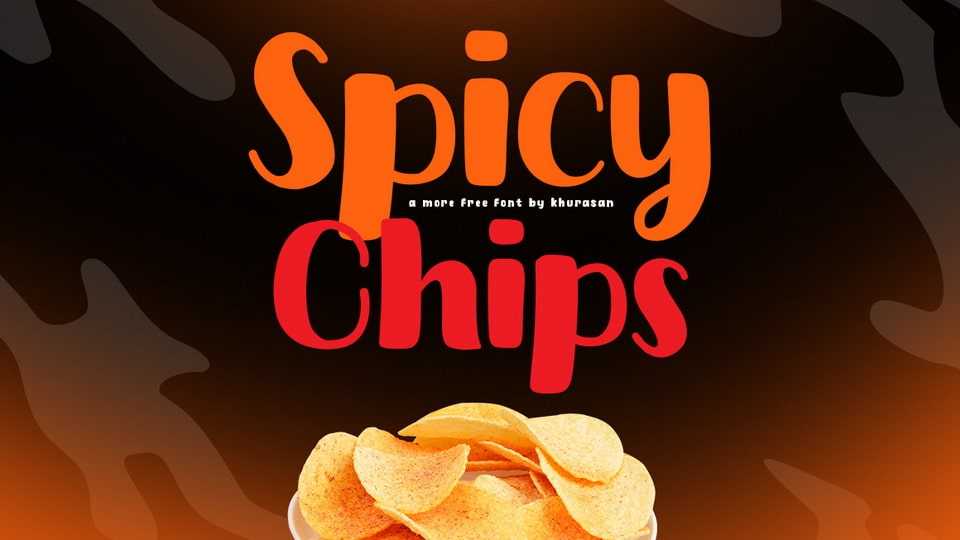
Download Spicy Chips font, a cute handwritten typeface that brings the magic of cartoons to life. Spicy Chips font, boasts an energetic and spontaneous design, with each letter exuding a sense of dynamic movement.